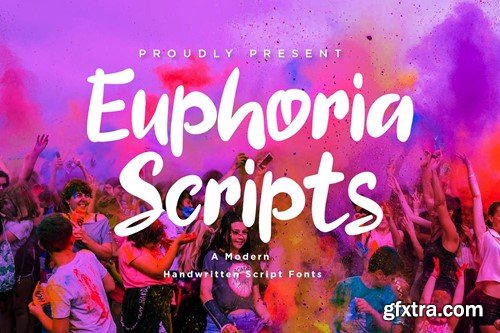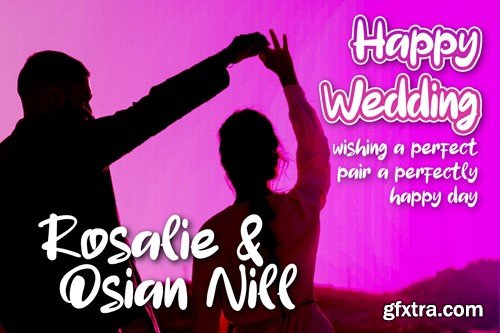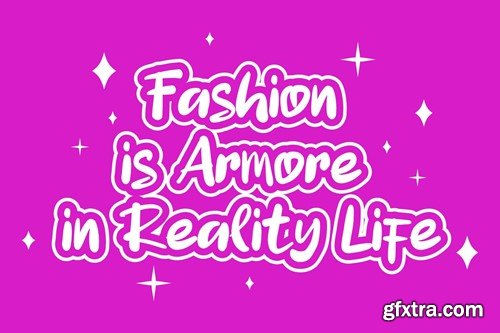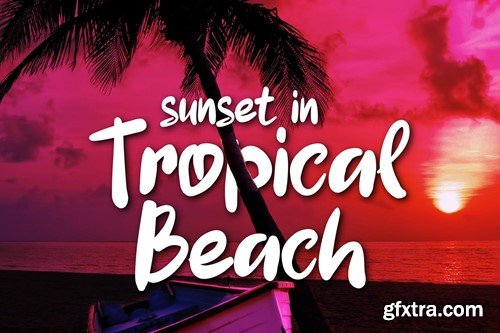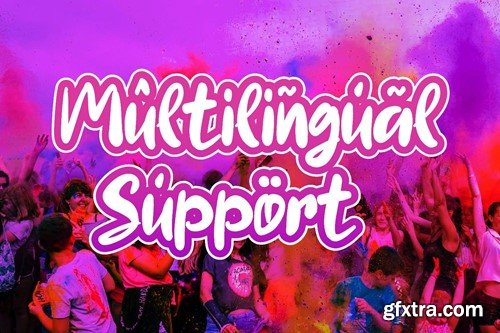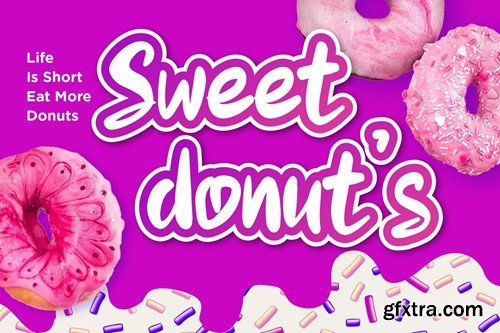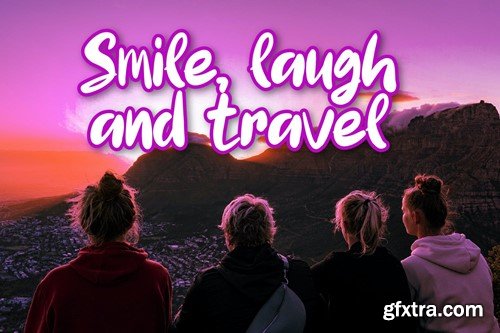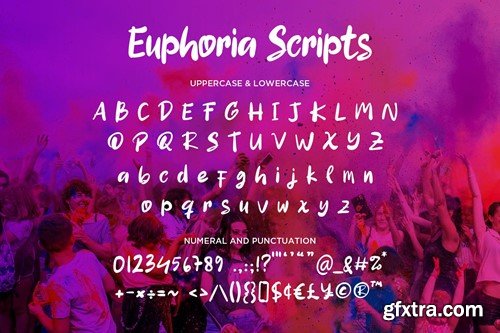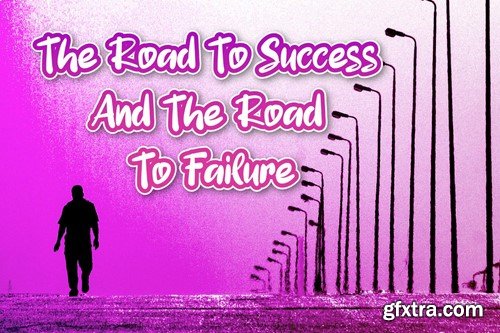
Euphoria Scripts - Handwritten Script fonts Euphoria Scripts is a Handwritten Script font, will be suitable for any projects such as branding, promotional ads, quotes design, merchandise, social media and much more. make your work or your business to high level!!! special events, and all your other lovely projects that need beautiful handwriting taste. Product Content : Features : I hope you enjoy this font. If you have any questions please don't hesitate to drop me a message :) Thank you